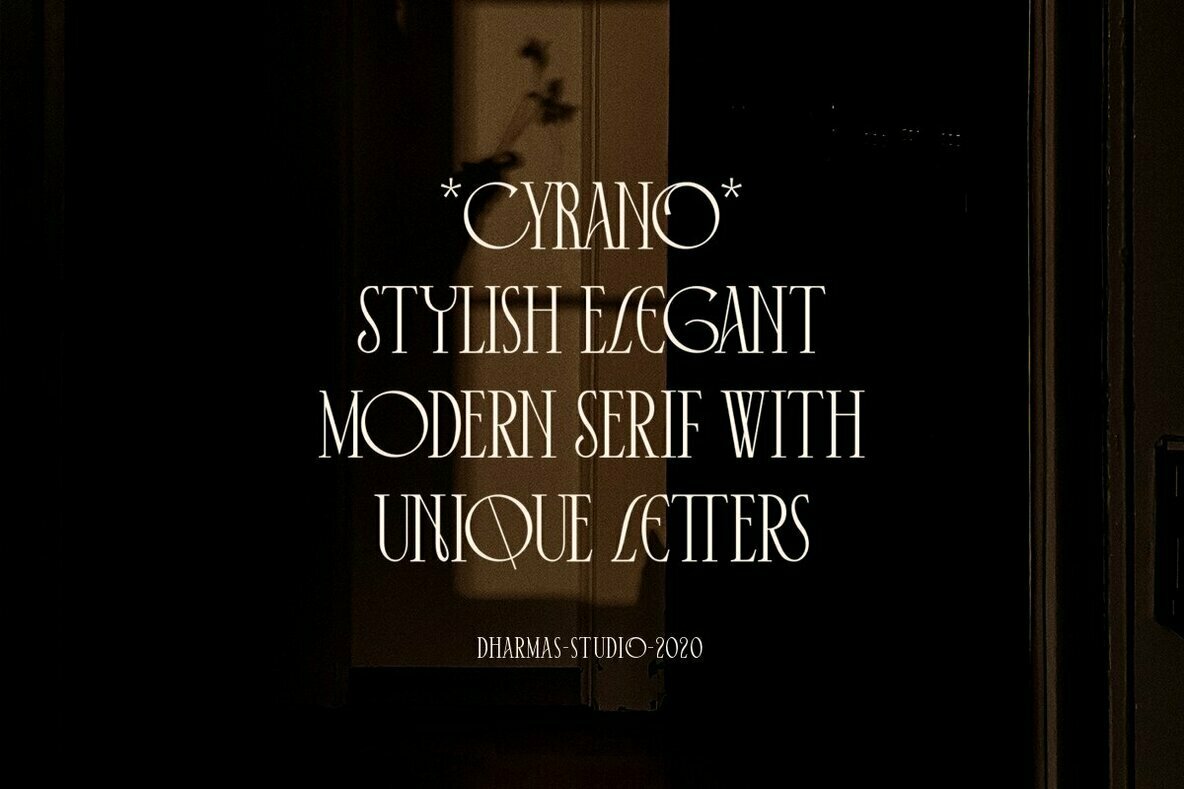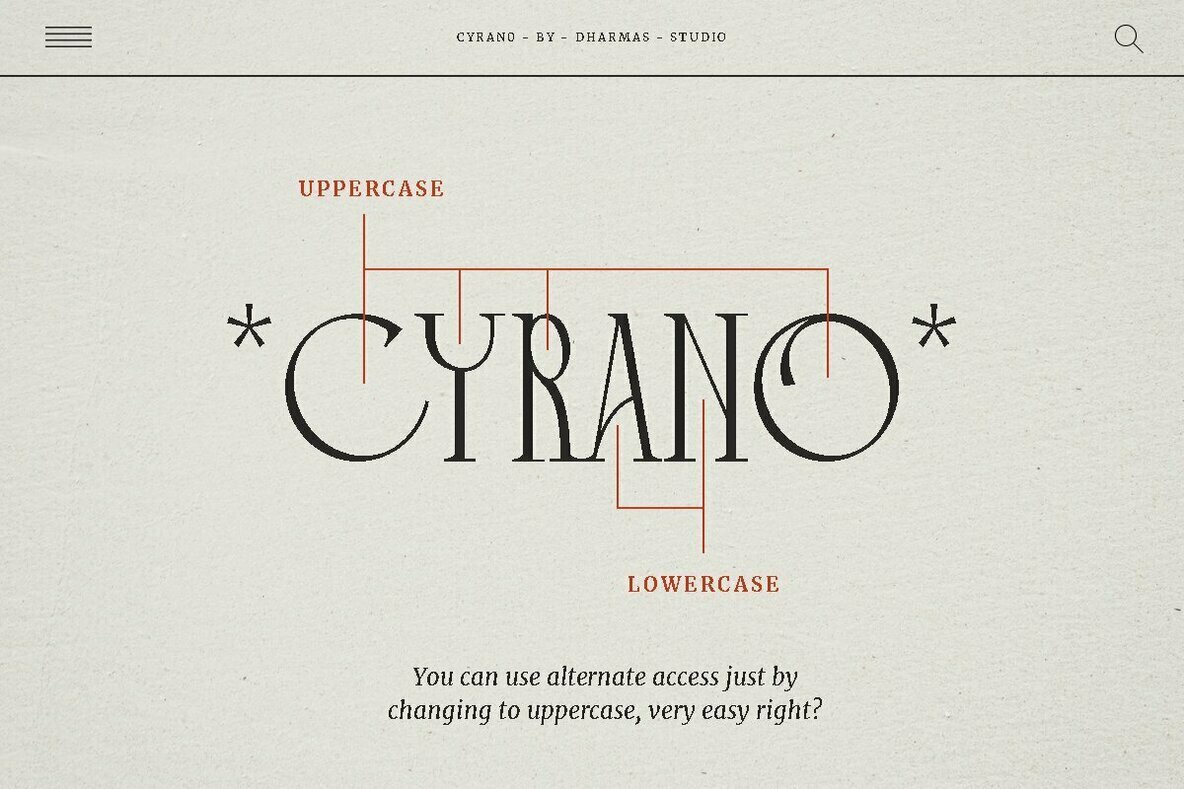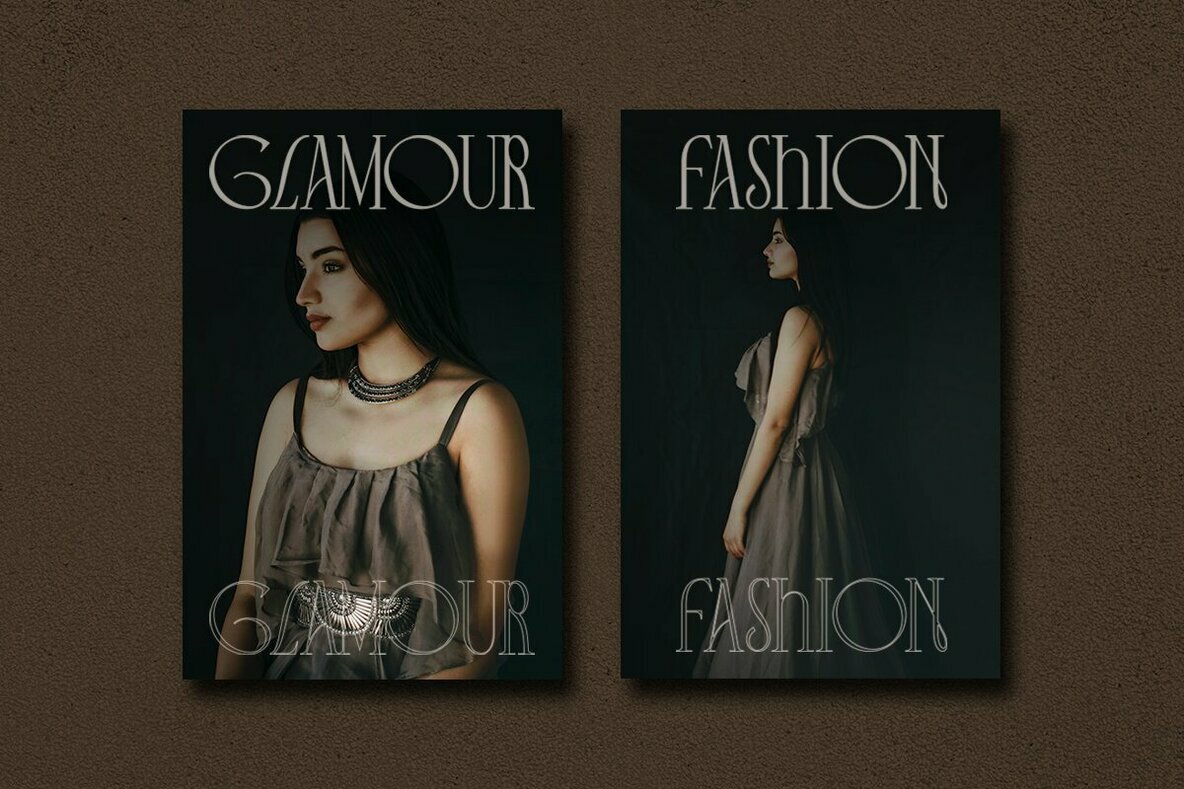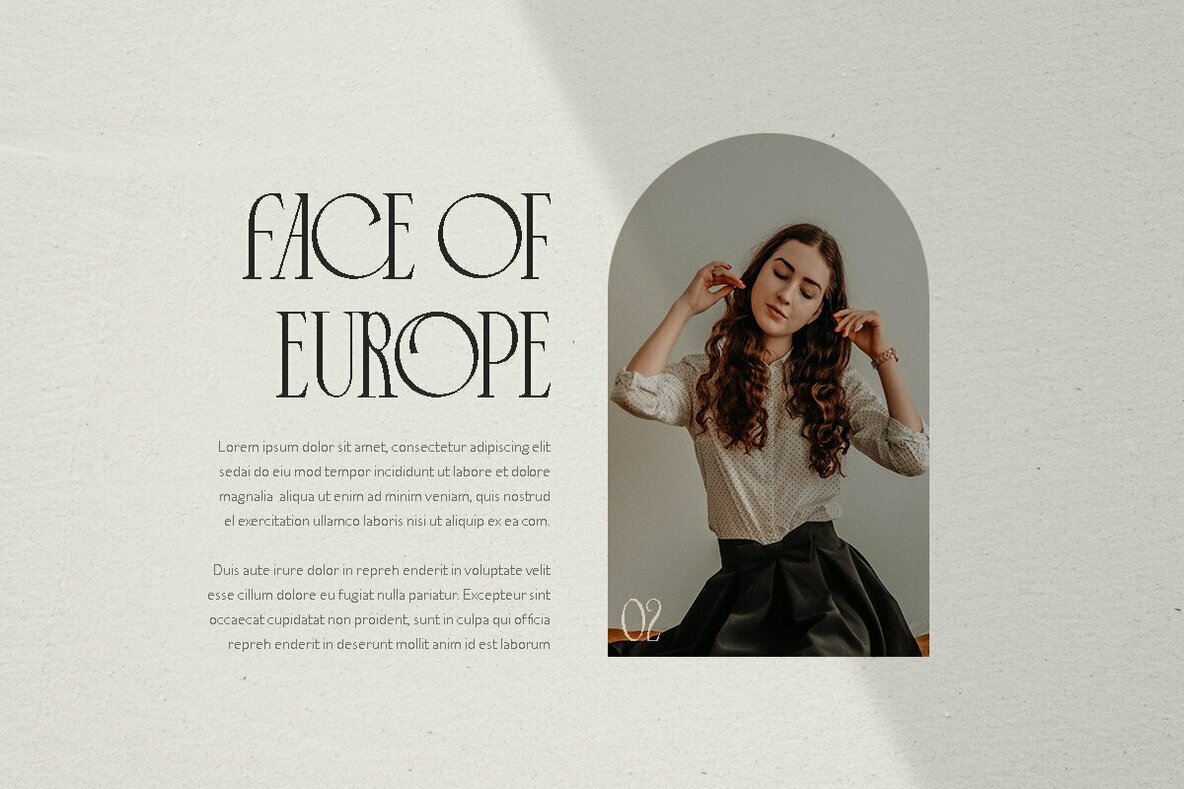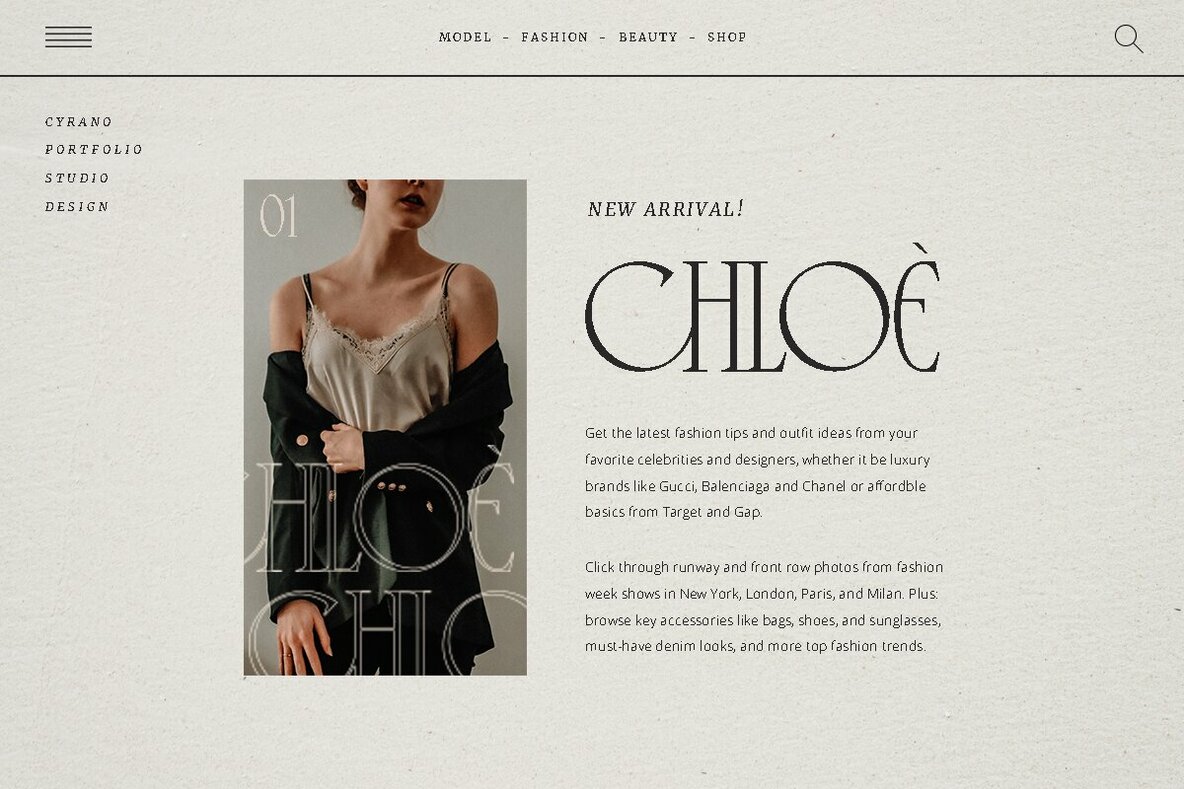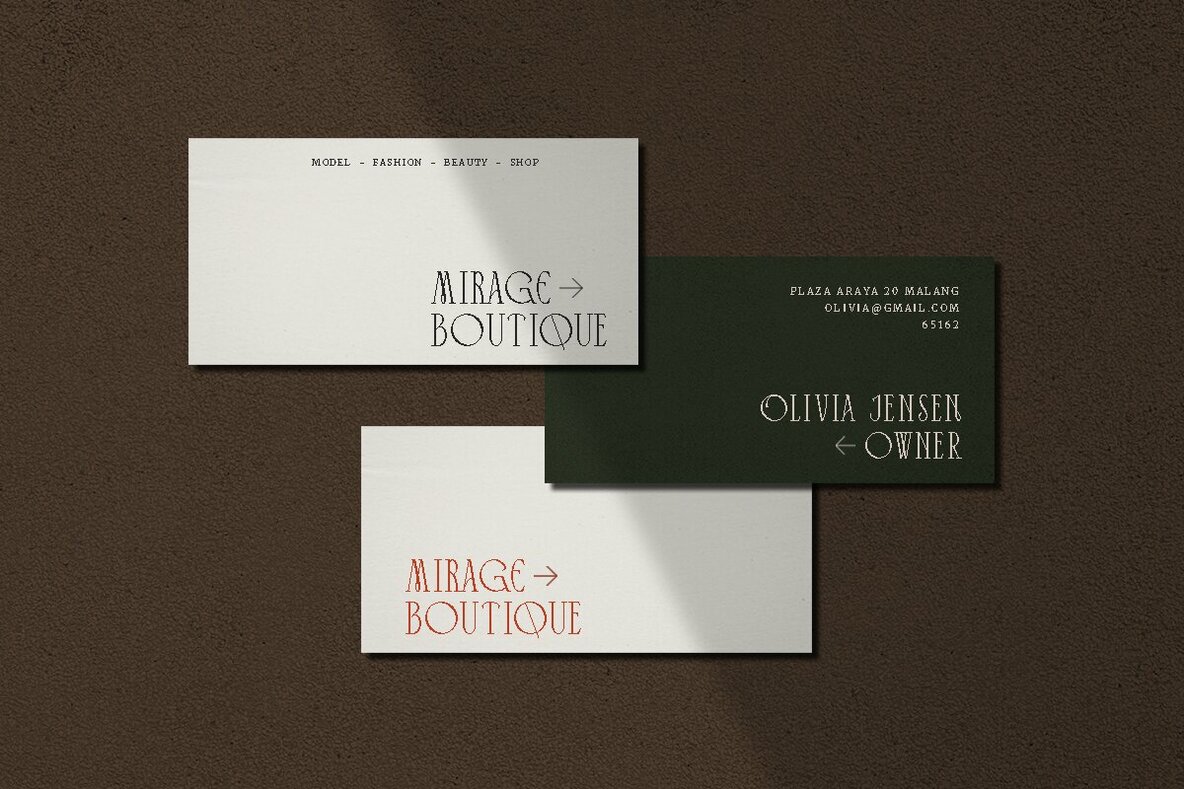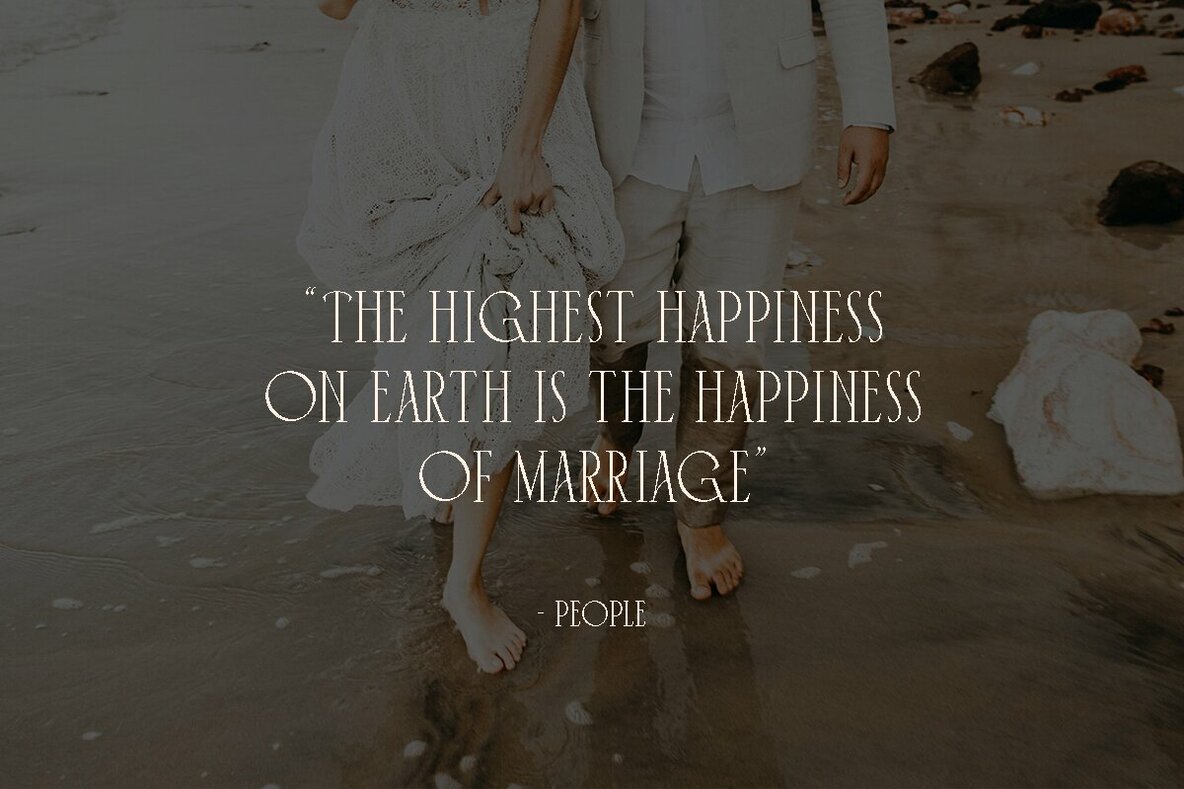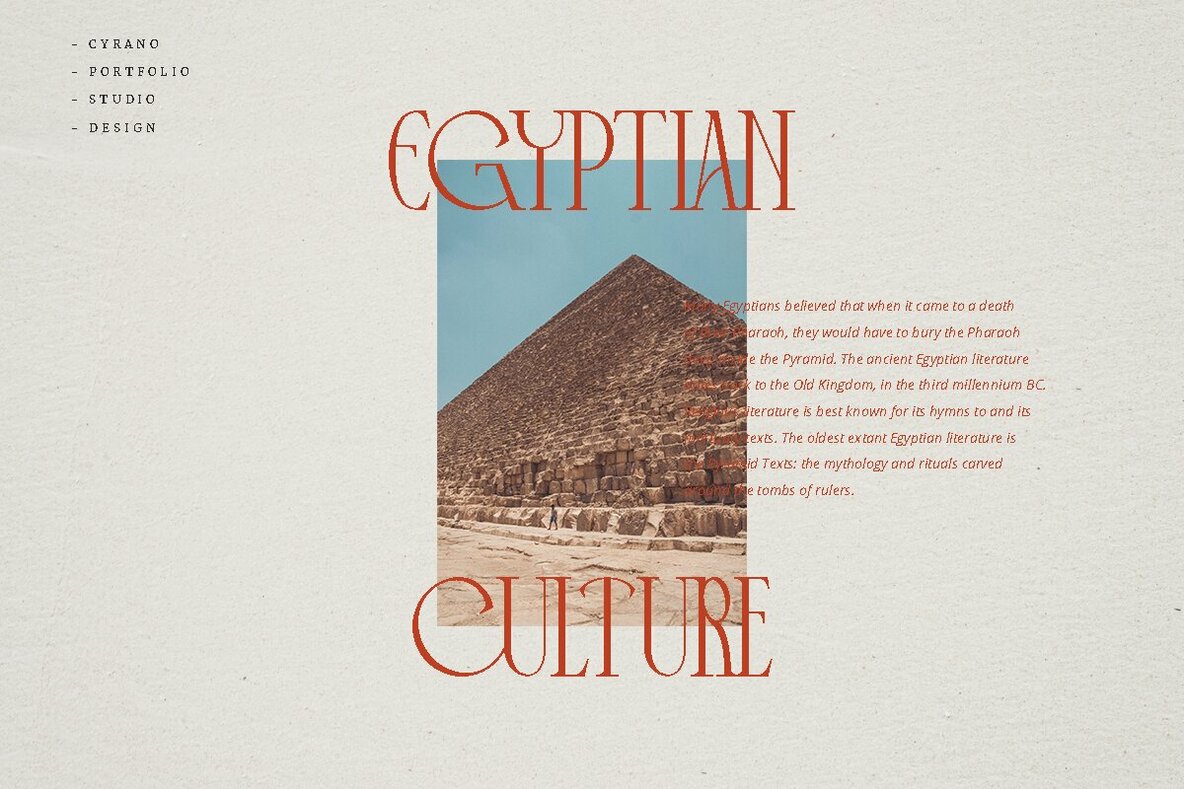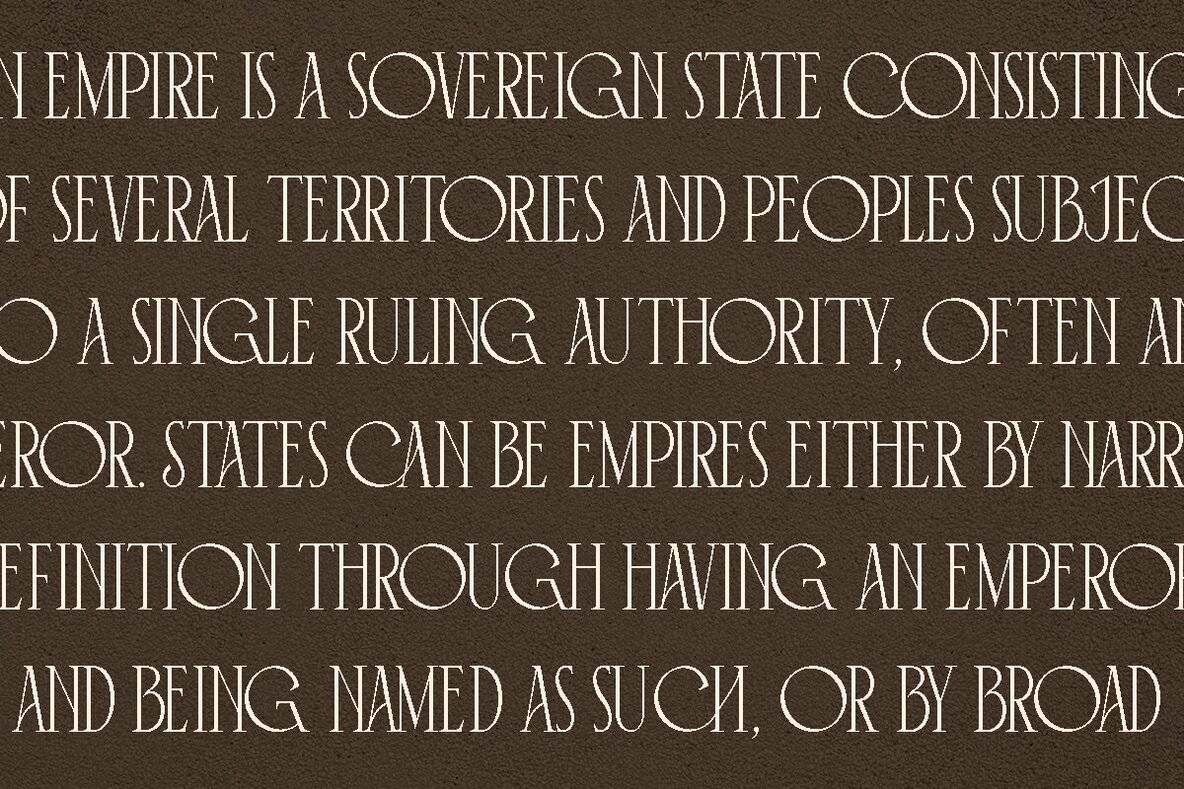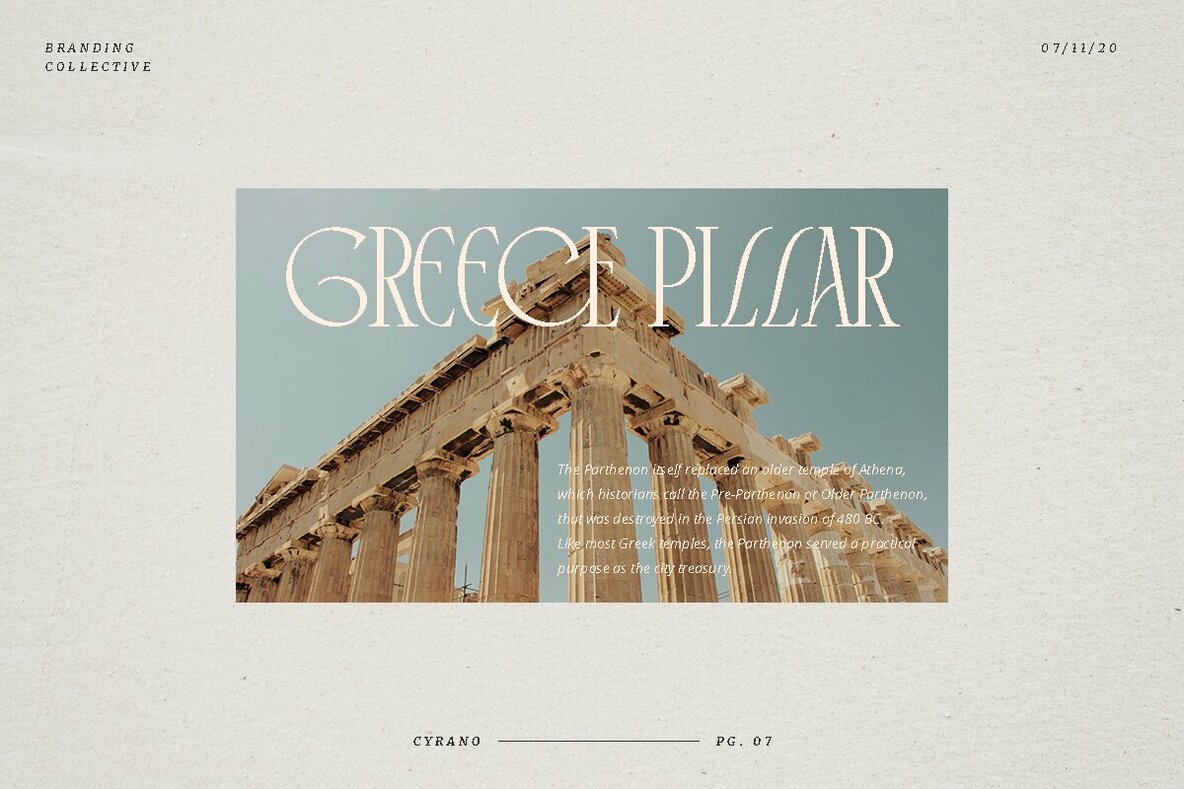
Cyrano Font
Cyrano
Cyrano by Dharmas Studio is a distinctive serif font that captures the essence of elegant European style. Carefully designed letterforms make your text exude fashion and sophistication, ideal for projects with an emphasis on chic aesthetics. This typeface is particularly suited for fashion-themed projects. Whether designing logos, magazine titles, or lifestyle designs, Cyrano imparts an air of elegance and style.Cyrano: Fashion-Forward European Serif